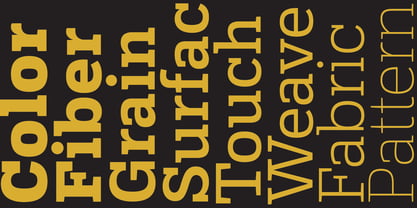
Buckram
by Bijou Type
The Buckram Font Family was designed by Dan Rhatigan and published by Bijou Type. Buckram contains 8 styles and family package options. More about this family
Buckram is a readable, hard-working slab serif, as hard-wearing and functional as its namesake cloth. It’s shapes are sturdy and clear, yet still have a touch of warmth and delicacy for your editorial or promotional needs. Buckram comes in seven weights, with an extensive Latin character set that supports approximately 390 languages.
Bijou Type is home to typefaces developed by Dan Rhatigan, an experienced typographer whose skills and sensibilities have been honed by years in the type industry working with clients big and small.After managing type development for years at both Monotype and Adobe, Dan has established Bijou Type for his own work, informed by a decades-long design career that dovetails with personal work in zine publishing and research in type history. Bijou typefaces are the result of ideas that have simmered for quite a while, fed by Dan’s deep fascination with all things typographic.